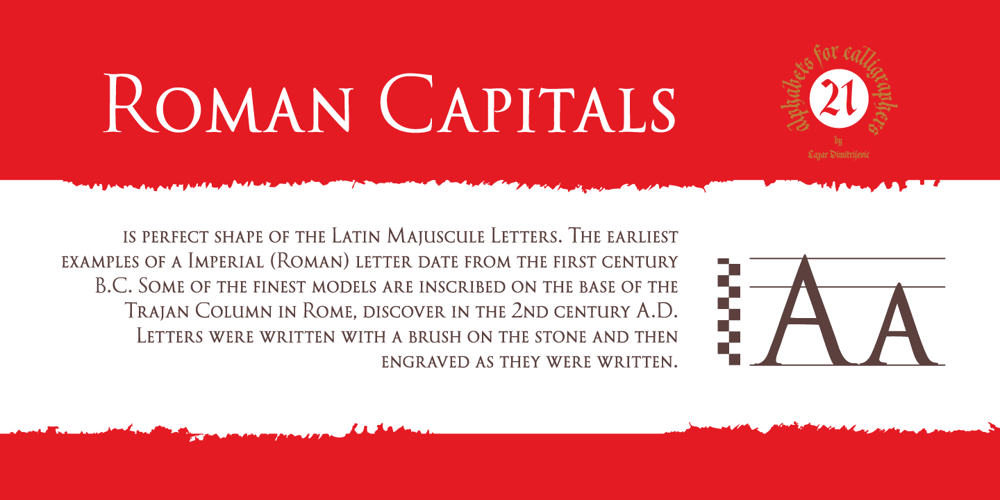
Cal Roman Capitals Font Family was designed by Lazar Dimitrijević and published by Posterizer KG. Cal Roman Capitals contains 1 styles and family package options. Calligrapher Roman Capitals Font, is one of the calligraphic group of fonts called “21 alphabets for Calligraphers“. All graphemes are taken from calligraphic pages written on traditional Imperial (Roman) calligraphic stile. This font is ideal for calligraphic sketches or for imitation of ancient manuscripts. Font contains Small Caps and all the Latin glyphs.